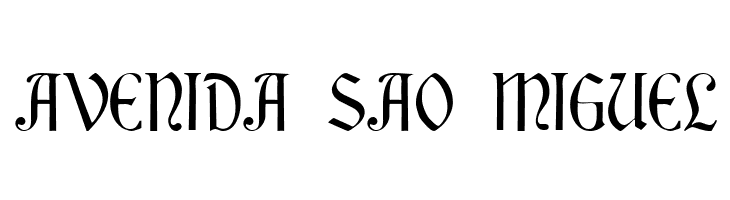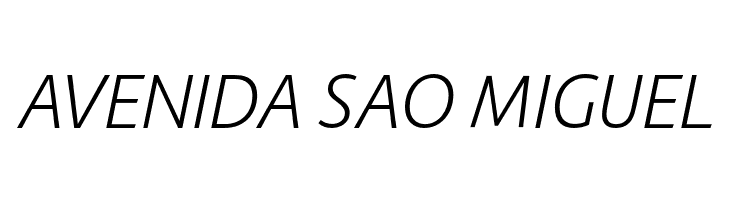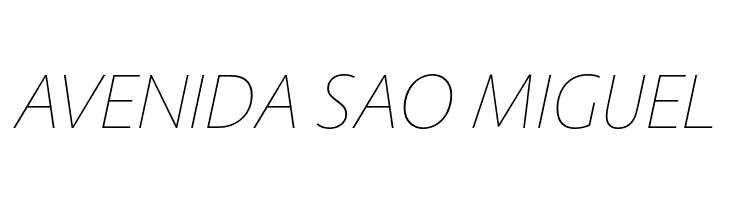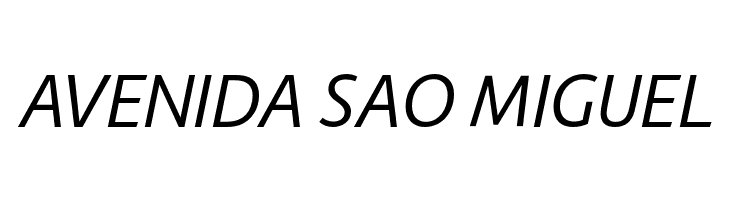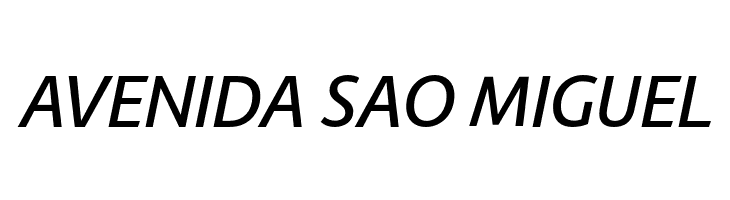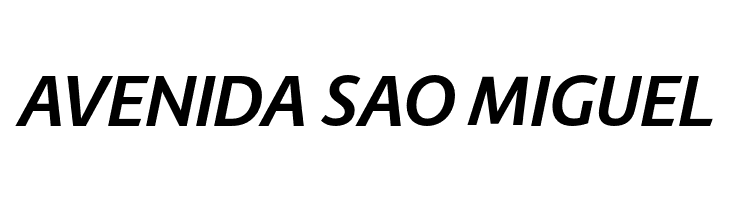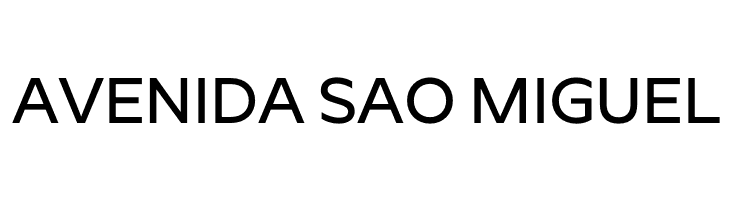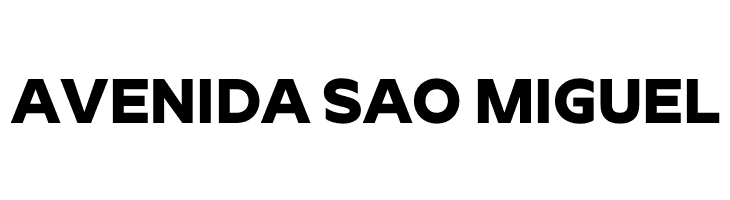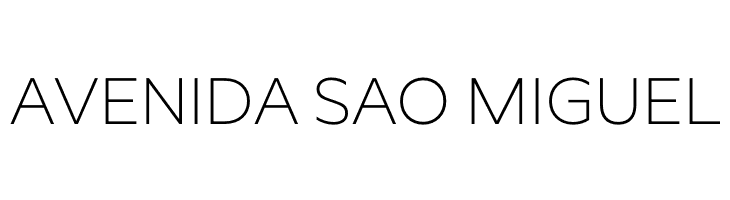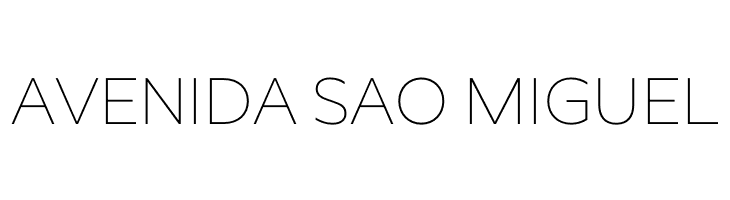
A playful, rounded font with a hand-drawn, casual style.
A playful, rounded font with a hand-drawn, informal style.
A bold, rounded handwritten font with a playful and casual style.
A modern, geometric sans-serif font with rounded edges.
A bold, rounded font with a modern and approachable style.
A geometric, extra light font with rounded edges and a minimalist design.
A modern, light sans-serif font with rounded edges and uniform stroke width.
A modern, clean sans-serif font with balanced proportions and smooth curves.
A modern, rounded typeface with a friendly and approachable design.
A bold, geometric display font with an optical illusion effect.
A modern, geometric font with rounded edges and uniform stroke width.
Patterned circular glyphs with abstract and geometric designs.
A modern, rounded font with uniform stroke width and smooth curves.
A bold slab serif font with rounded edges and strong visual impact.
A bold, rounded, and italic font with a playful and dynamic style.
A playful, bold font with rounded, bulbous characters and a whimsical style.
A modern, geometric sans-serif font with clean lines and balanced spacing.
A playful, hand-drawn font with tall, narrow characters and a whimsical style.
An elegant and decorative font with intricate swirls and flourishes.
A fluid, cursive script font with a natural handwriting style.
A dynamic script font with fluid, continuous strokes and a modern, energetic style.
A bold, italic, modern font with clean lines and dynamic slanted letterforms.
A modern, italic font with clean lines and consistent stroke width.
A sleek, modern sans-serif font with a light, italic style.
A sleek, modern semi-bold italic font with a dynamic and stylish appearance.
An ultra-light, italic font with sleek, elongated letterforms and a modern aesthetic.
A bold, three-dimensional font with a strong visual impact and geometric design.
A bold, retro 3D font with geometric shapes and layered outlines.